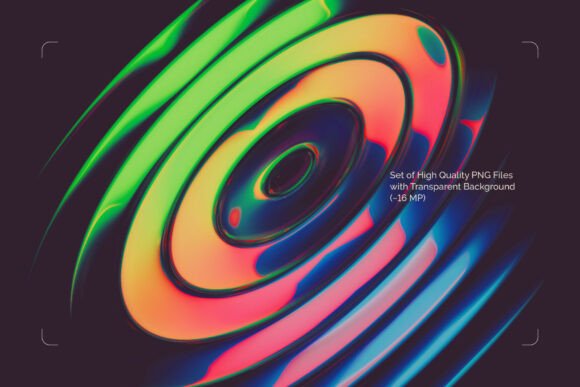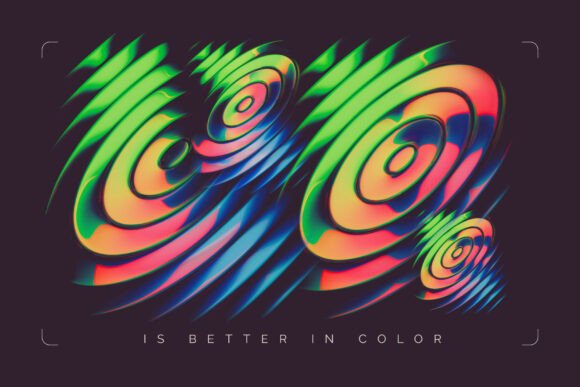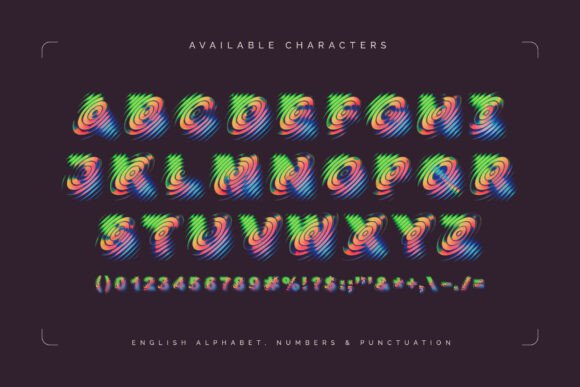
Introduction to Rainbow Orb Font
Imagine you’re brainstorming ideas for a client’s vibrant social media campaign. You’re trying to convey a sense of fun, playfulness, and creativity. The perfect font can elevate your design from ordinary to extraordinary. That’s where the Rainbow Orb Font comes in – a stunning, high-quality design resource that’s sure to add a pop of color to your creative project.
As a designer, you’re always on the lookout for unique and eye-catching elements to enhance your work. The Rainbow Orb Font delivers with its abstract, round shape and rainbow letters refracting through a shiny glass ellipse. This color bitmap OpenType-SVG font is not only visually striking but also incredibly versatile, making it a valuable addition to any designer’s toolkit.
Key Features of Rainbow Orb Font
- Unique, colorful design that adds a creative touch to any project, making it a valuable design resource for artists and designers.
- Perfect for adding a pop of color and whimsy to creative projects, from branding and marketing materials to art and design collaborations.
Honest Review: Rainbow Orb Font
- ✨ High-quality design: The Rainbow Orb Font is well-crafted and visually appealing, making it a great addition to any design project.
- ✨ Transparent background: The font’s transparent background makes it easy to customize and work with in a variety of design contexts.
- ✨ Versatility: The Rainbow Orb Font is suitable for a wide range of creative projects, from digital graphics to print materials.
- ⚠️ Limited character set: The font’s character set is somewhat limited, which may make it less suitable for projects that require a wide range of characters.
- ⚠️ Not ideal for text-heavy designs: The Rainbow Orb Font is more suited for designs that feature short bursts of text, rather than lengthy paragraphs.
Overall, I was impressed with the Rainbow Orb Font’s design and versatility. While it may have some limitations, it’s a great resource for designers who want to add a bit of creativity to their projects. Whether you’re working on a digital graphic or a print material, this font is definitely worth checking out.
The Rainbow Orb Font is perfect for creative projects, such as social media graphics, posters, and flyers. You can also use it in educational materials, like presentations and worksheets, to add a fun and engaging element.